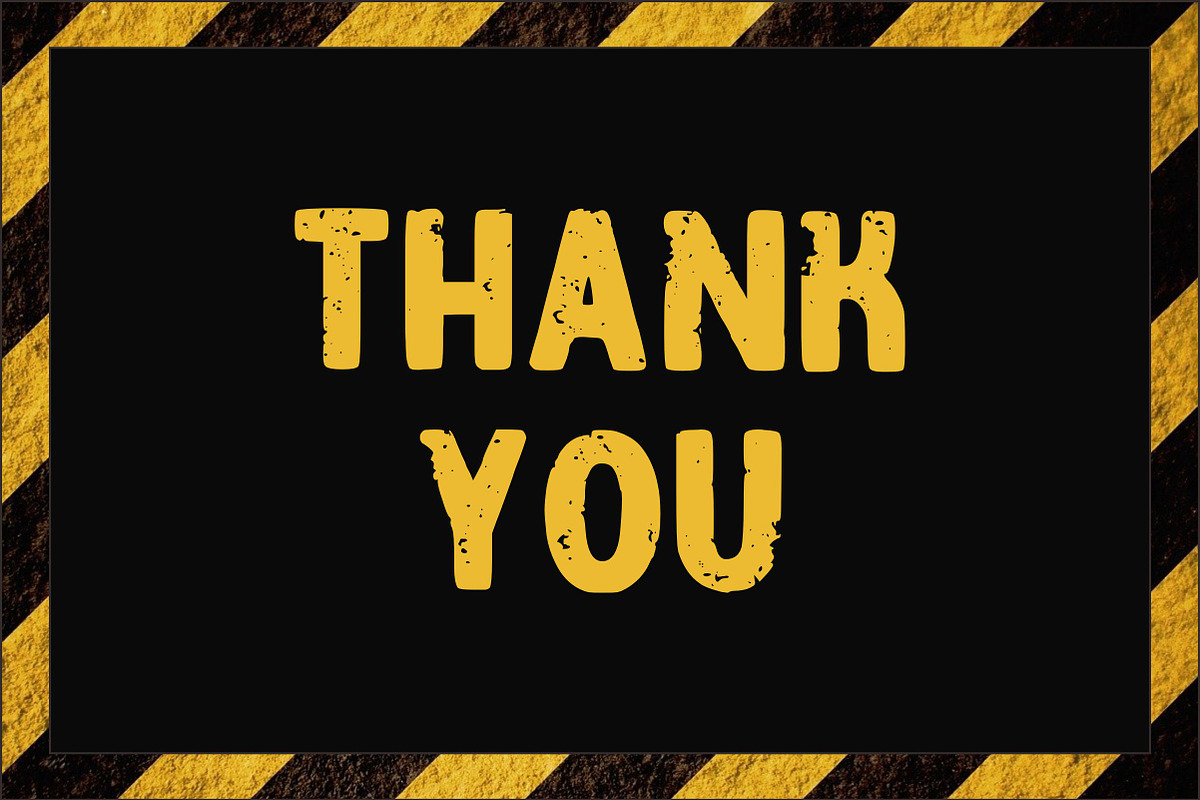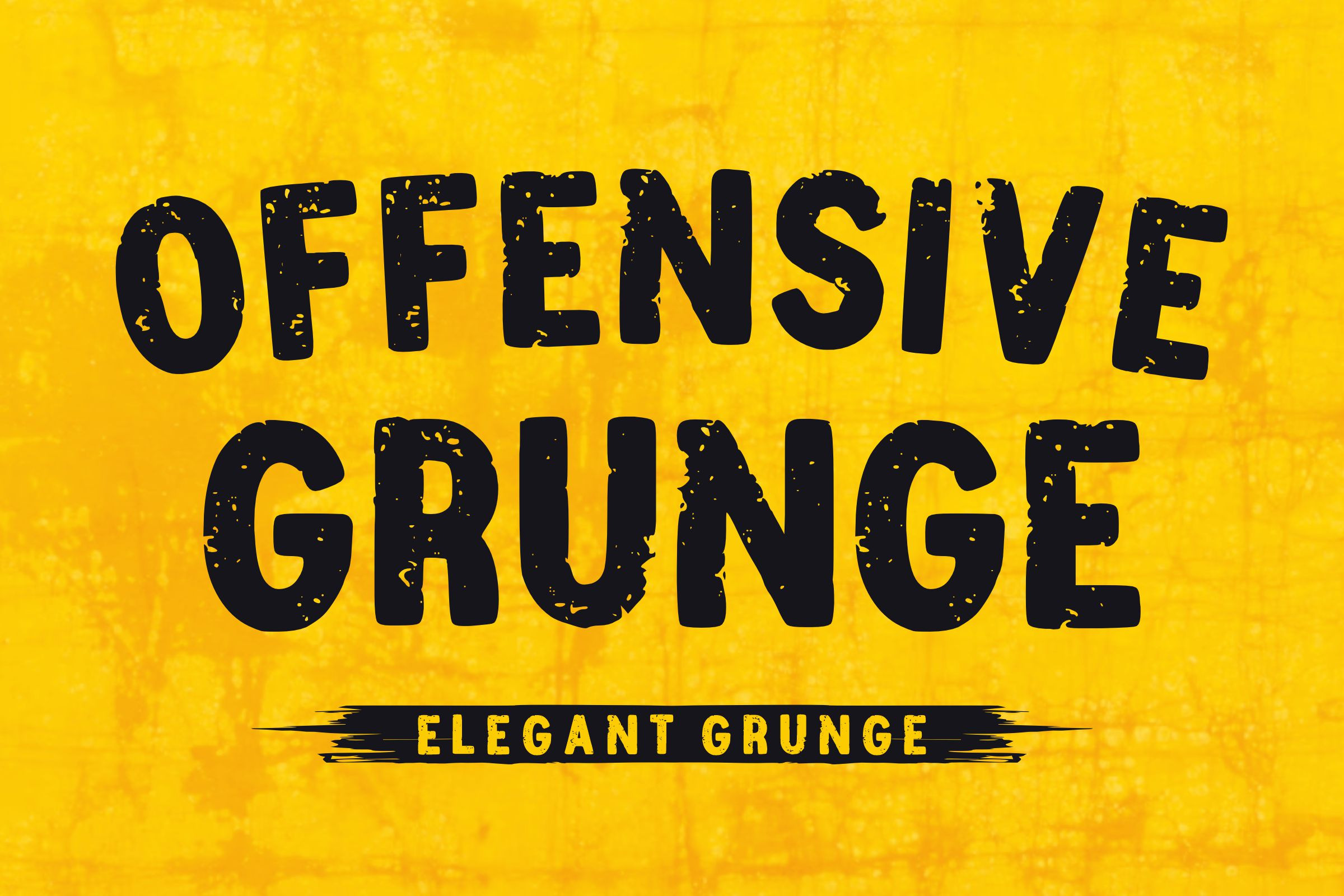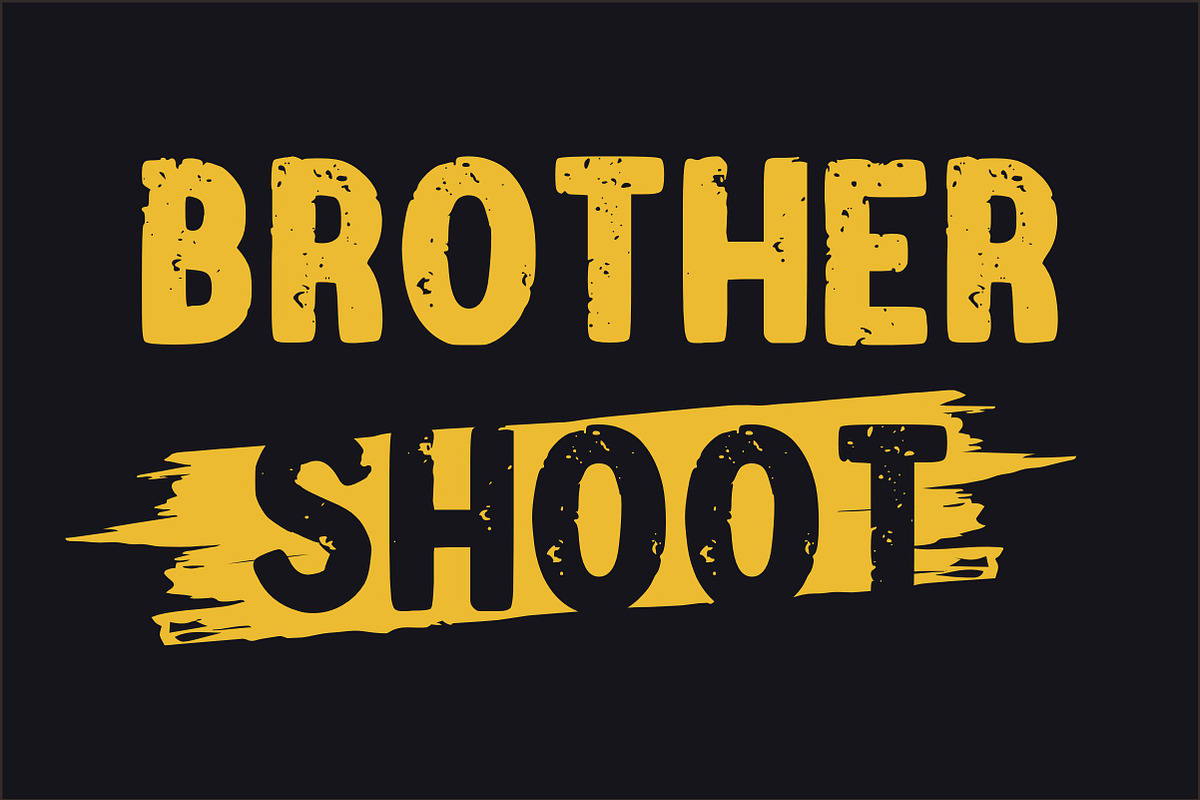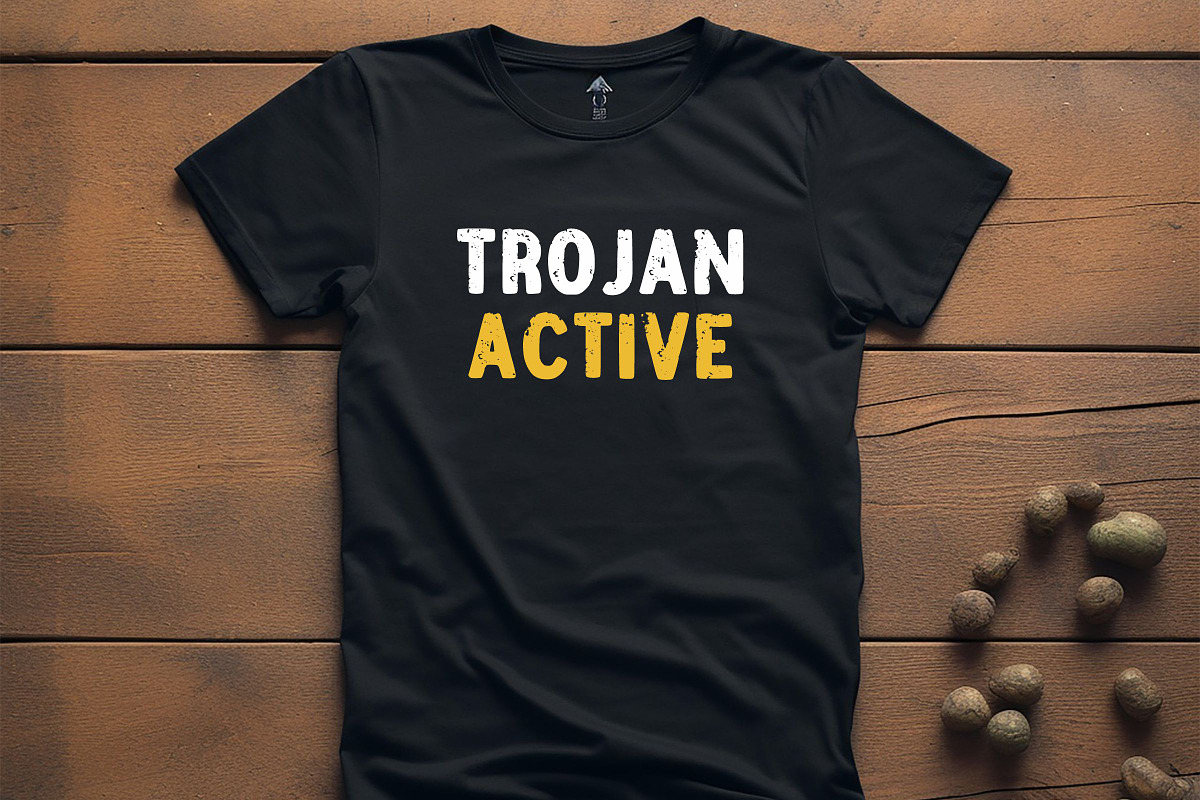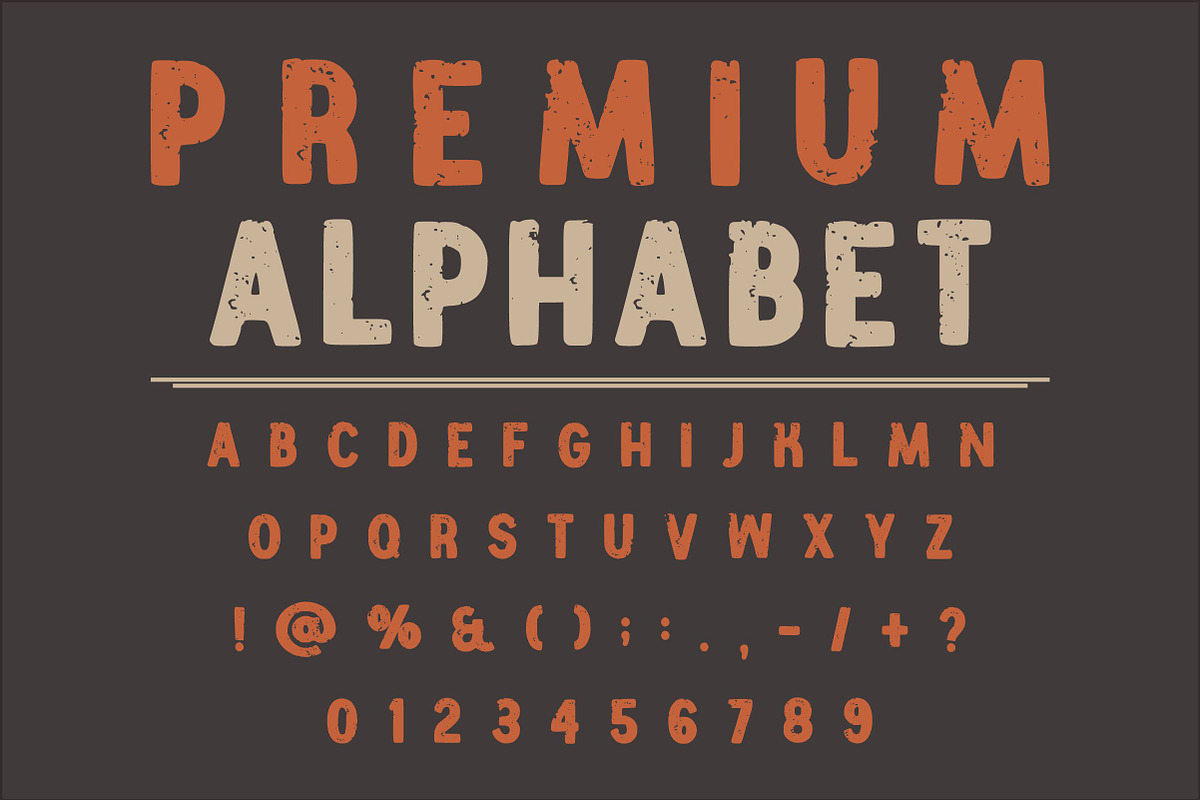
Offensive Grunge - Bold Font
Offensive Grunge is a bold and grunge typeface that captures the raw energy of urban rebellion and underground design.
Unleash raw, industrial energy with the Offensive Grunge font, a powerhouse display typeface that refuses to be ignored. Featuring heavy, distressed letterforms with a weathered texture, this Offensive Grunge typeface is built for high-impact headlines and rebellious branding. It is an ideal selection for street-wear apparel, rock music posters, and extreme sports graphics.
The Offensive Grunge font works best when used in large sizes to showcase the intricate “elegant grunge” details within the strokes. Pair it with a clean, sharp sans-serif to create a “beauty and the beast” contrast that makes your messaging pop against gritty, urban backgrounds.